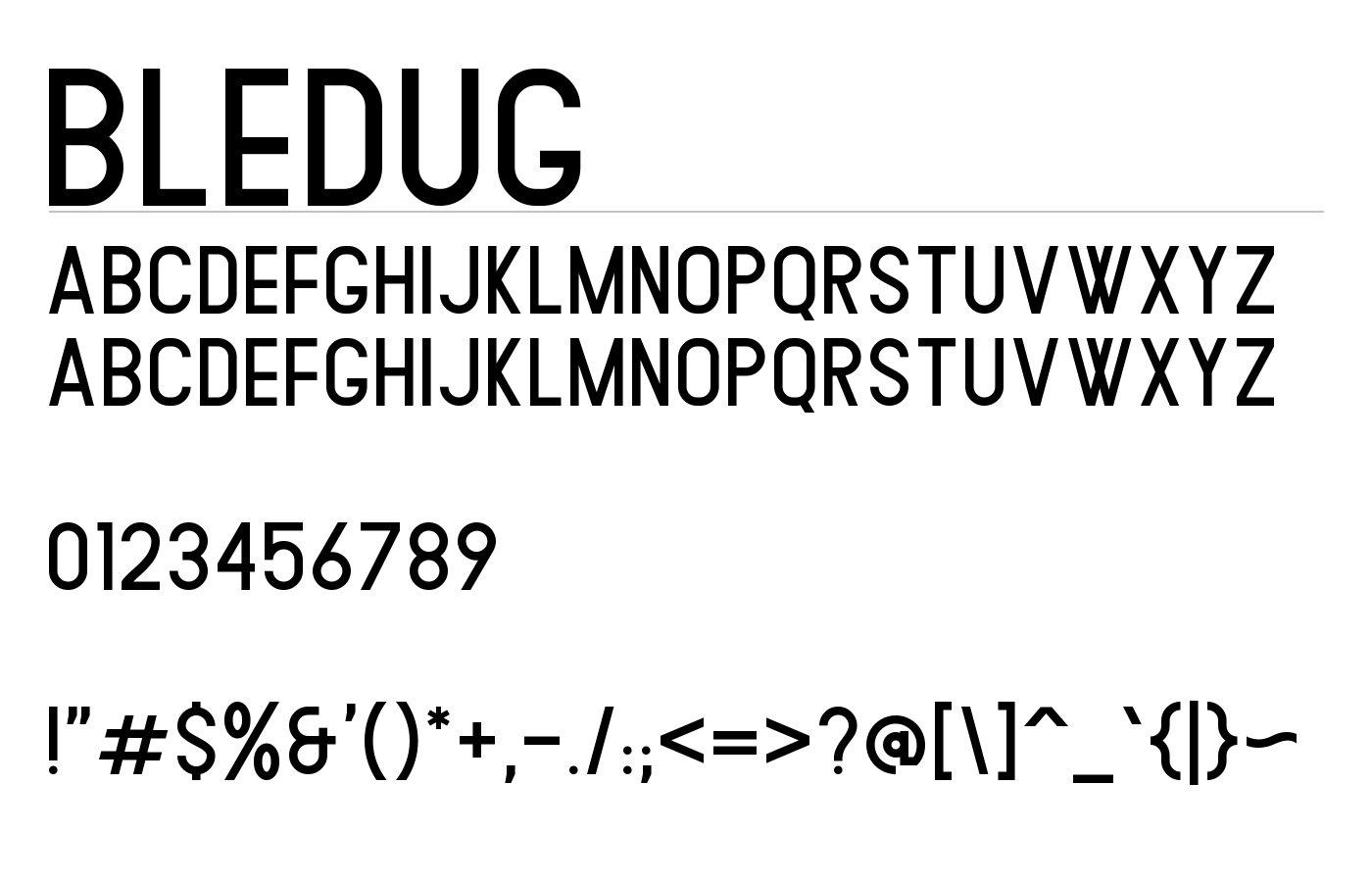
Bledug is a clean, condensed sans-serif font with a modern and slightly technical feel. Its uniform stroke weight, tall x-height, and narrow letterforms make it highly legible and efficient for space-saving designs, while its distinctive shapes, like the stylized ‘W’, add character and uniqueness. This font works well for headlines, branding, and editorial projects where a sleek, contemporary, and professional look is desired.
Bledug Font
About Bledug Font